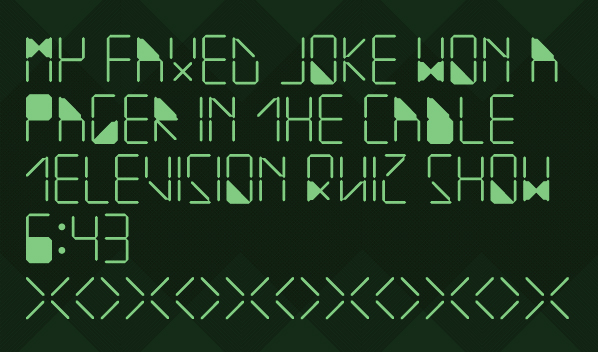
Preview and download Water in my Casio Font. Created by Xavier Puig in Techno LCD styles with Free for personal use license.
Water in my casio is a LED face. If you would like to use is for commercial purposes please contact me on xavierpuig@bababau.com for further info. I'll also appreciate if you send me links/images of your non-commercial work featuring this font. Enjoy! |